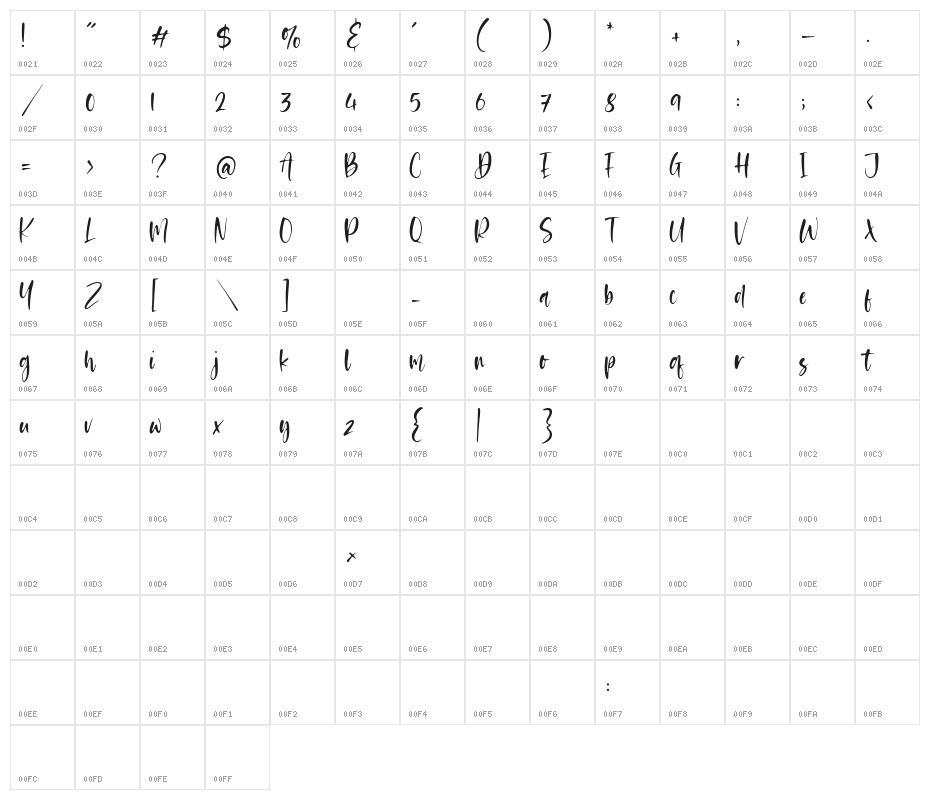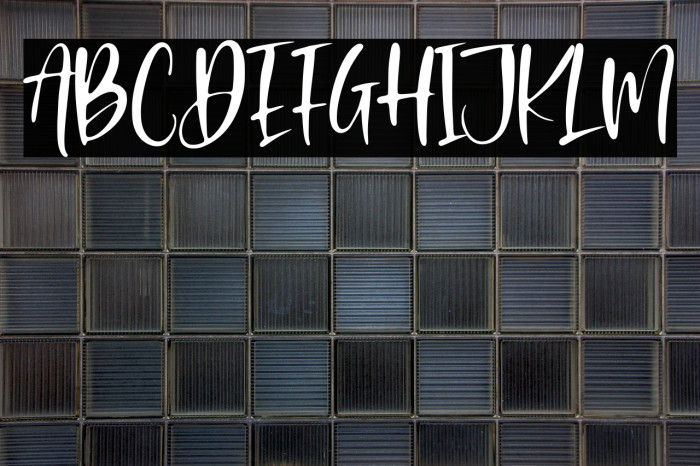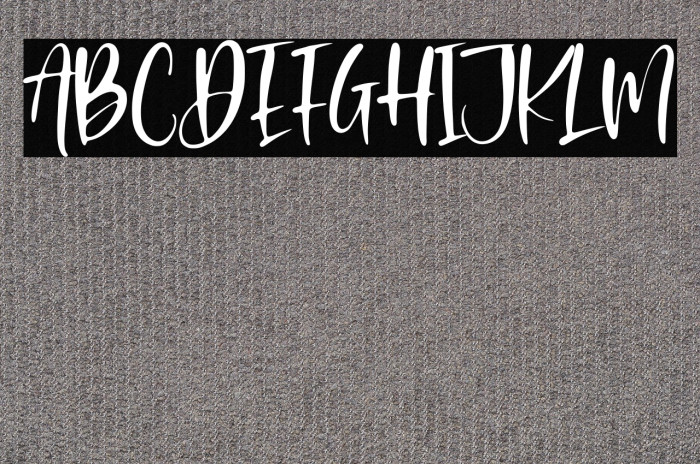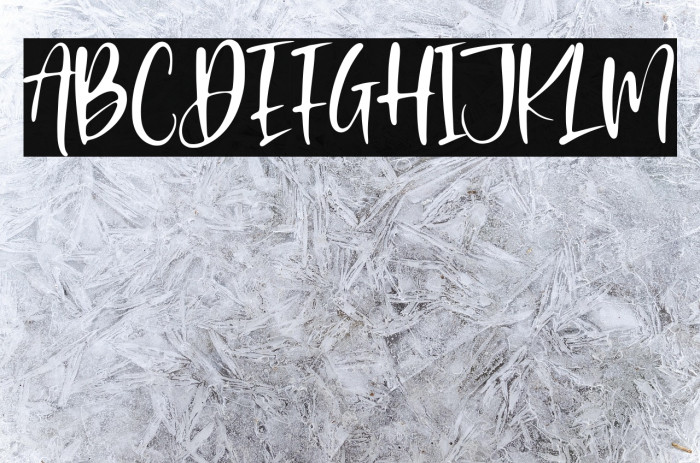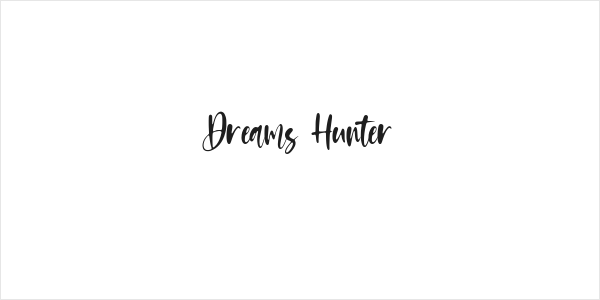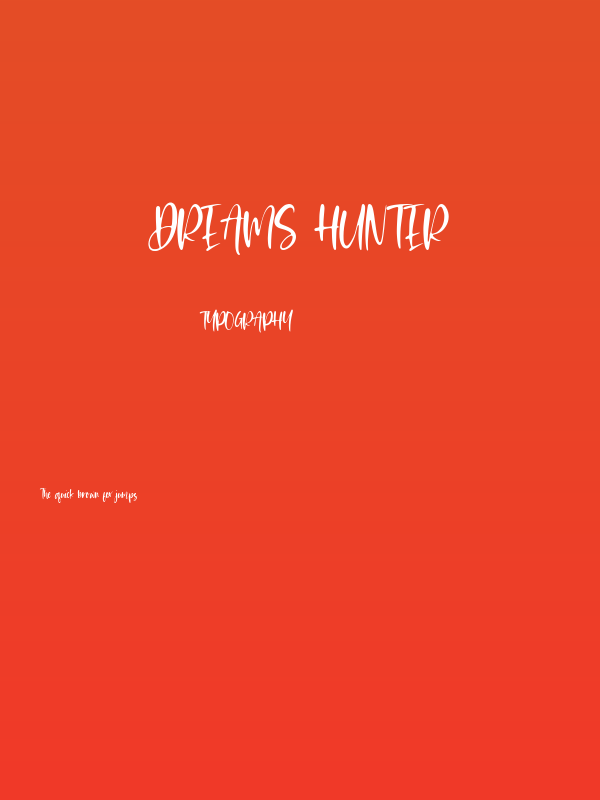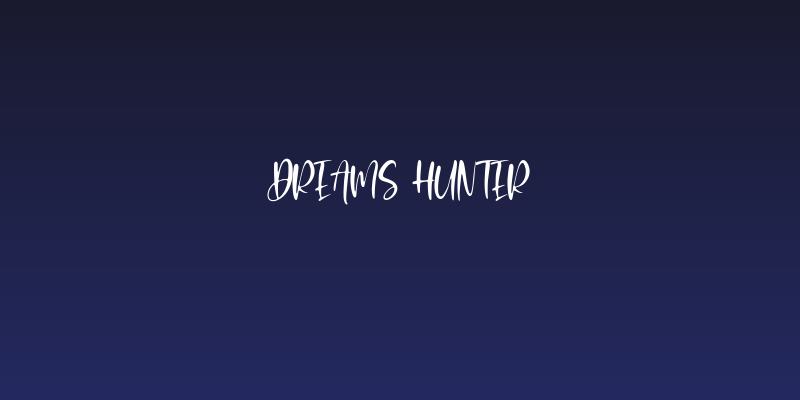
Dreams Hunter Font
Dreams Hunter Description
This font features a flowing, handwritten style with a modern and artistic flair. The uppercase letters are bold and dynamic, with a slight slant that adds a sense of movement and elegance. The lowercase letters maintain a consistent style, offering a harmonious blend of curves and loops that enhance its handwritten appeal. The numerals are clear and legible, complementing the overall aesthetic. Special characters are thoughtfully designed to match the font's artistic nature, making it versatile for various creative applications. The strokes are smooth and fluid, providing a sense of continuity and grace throughout the character set.